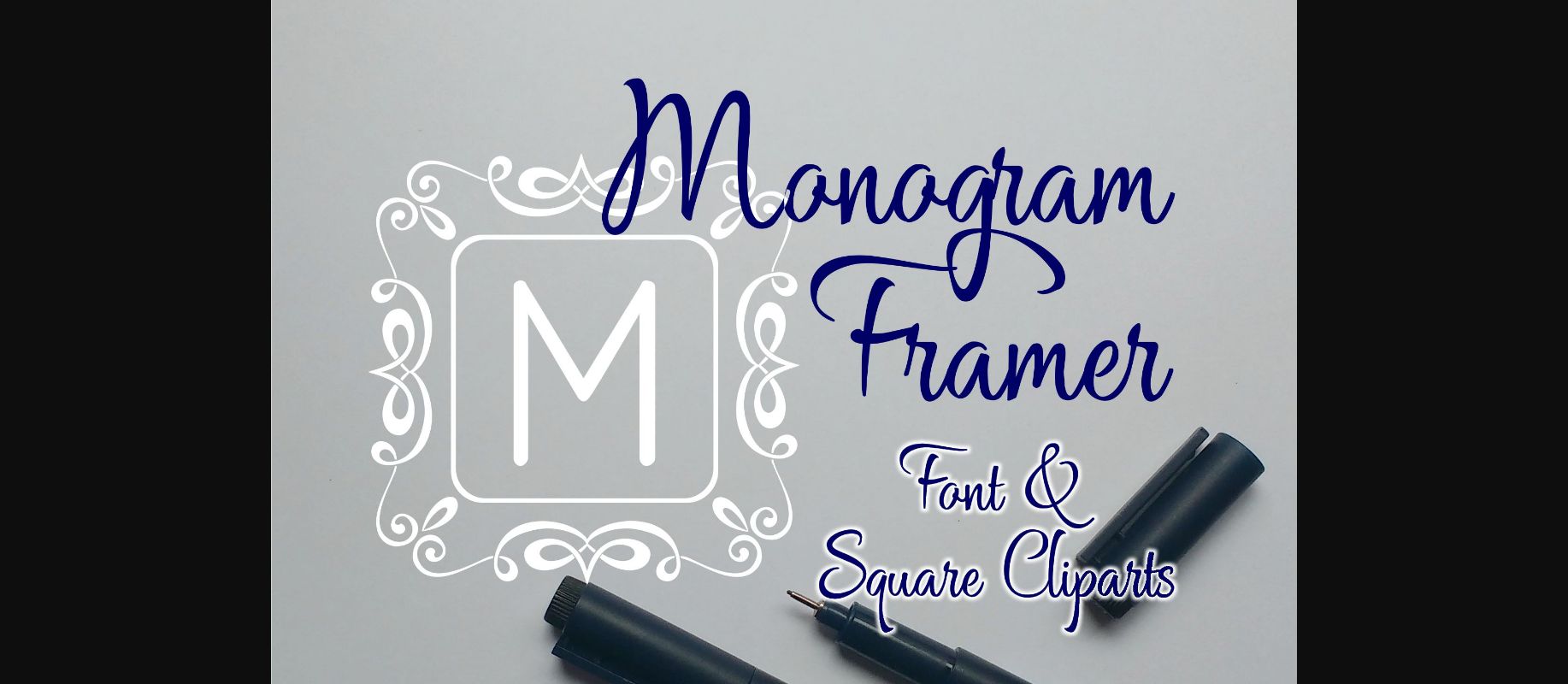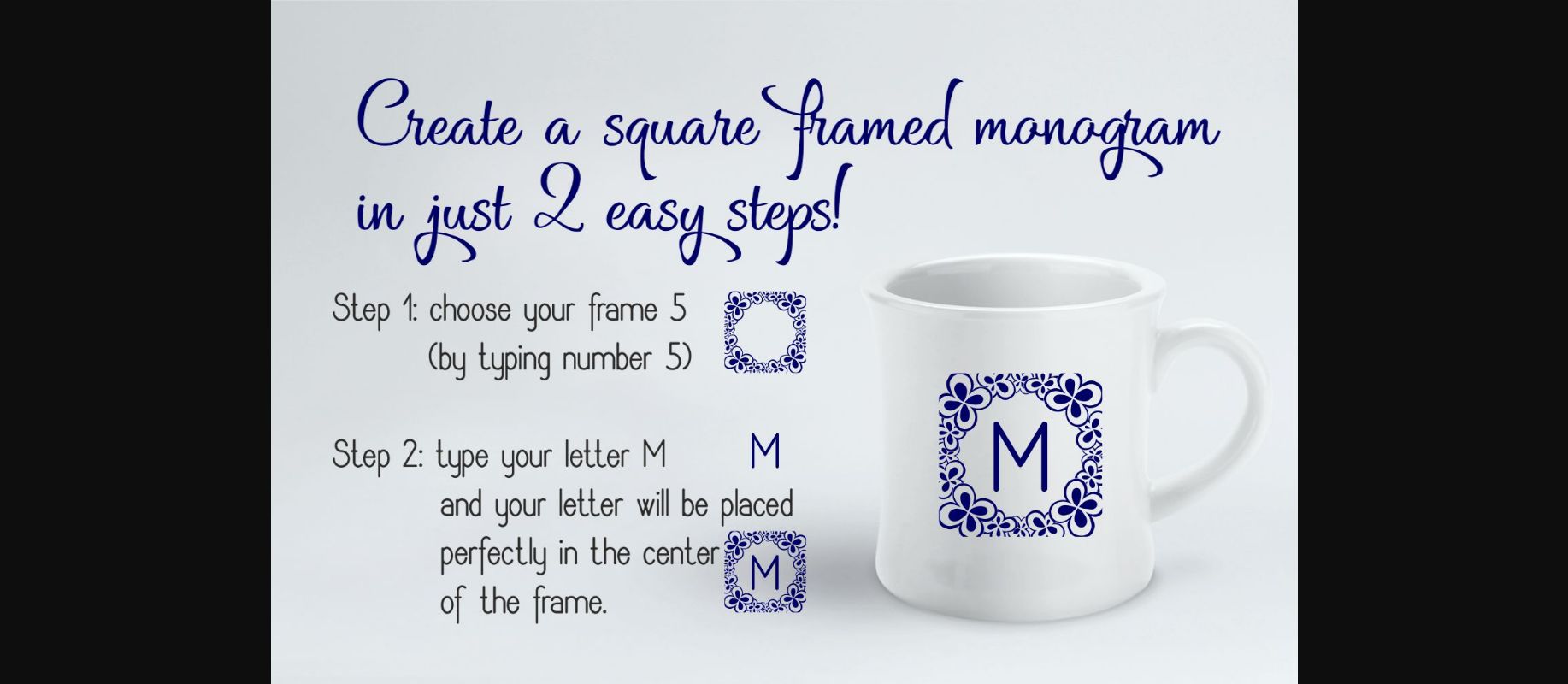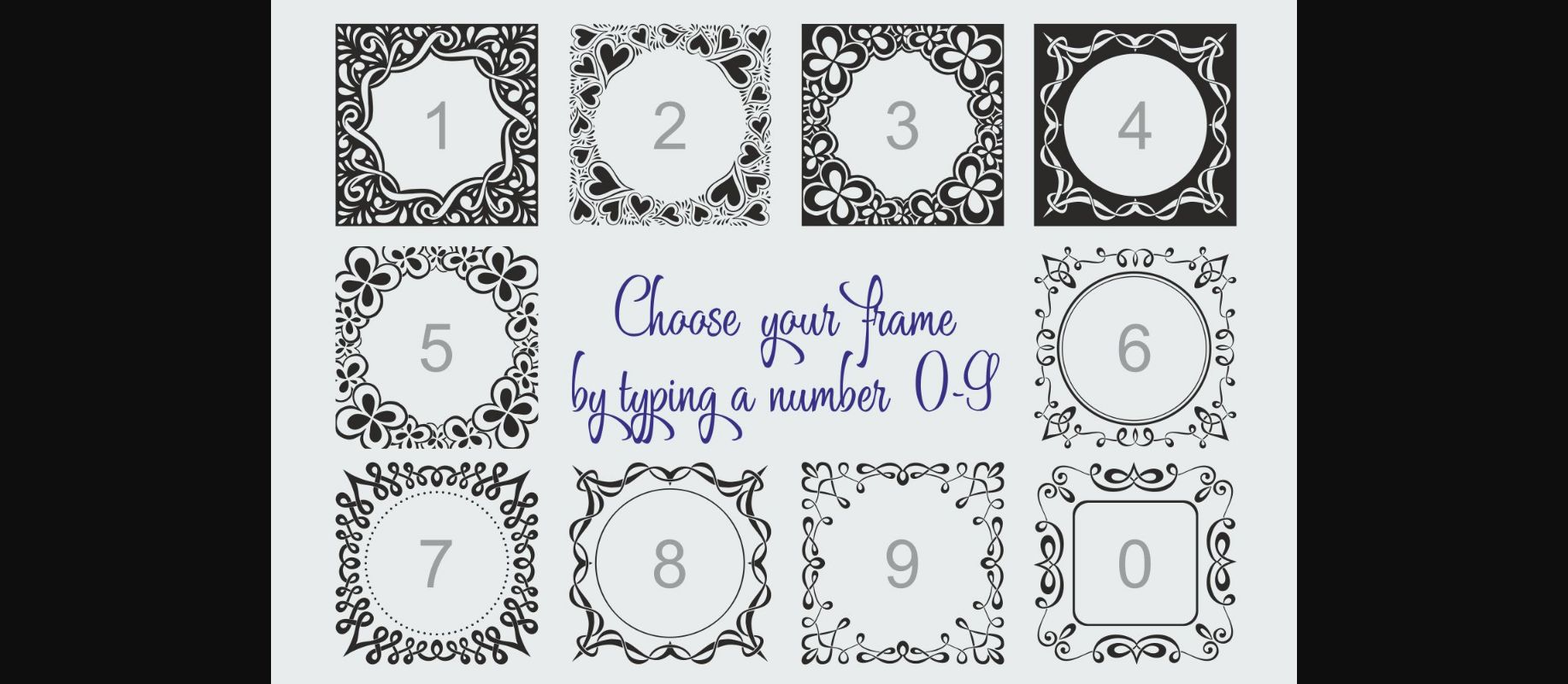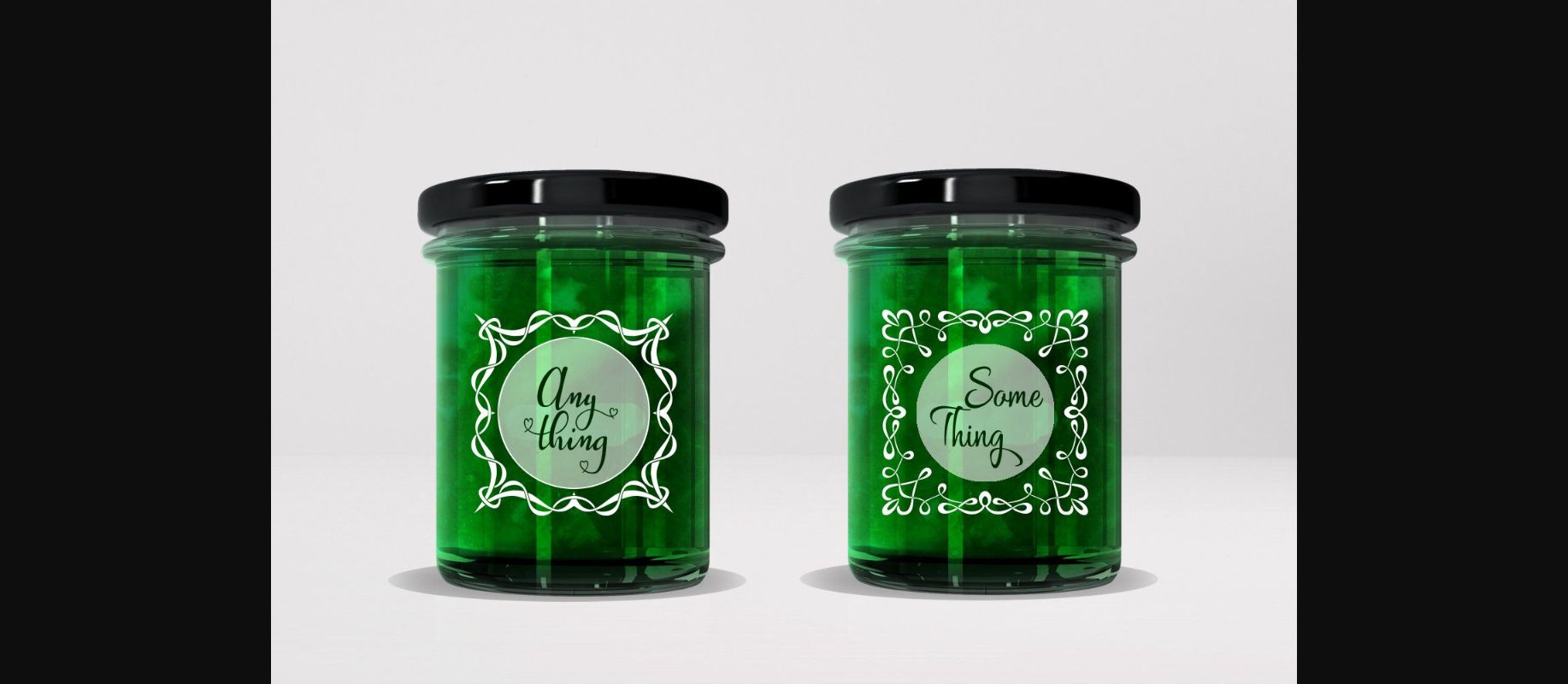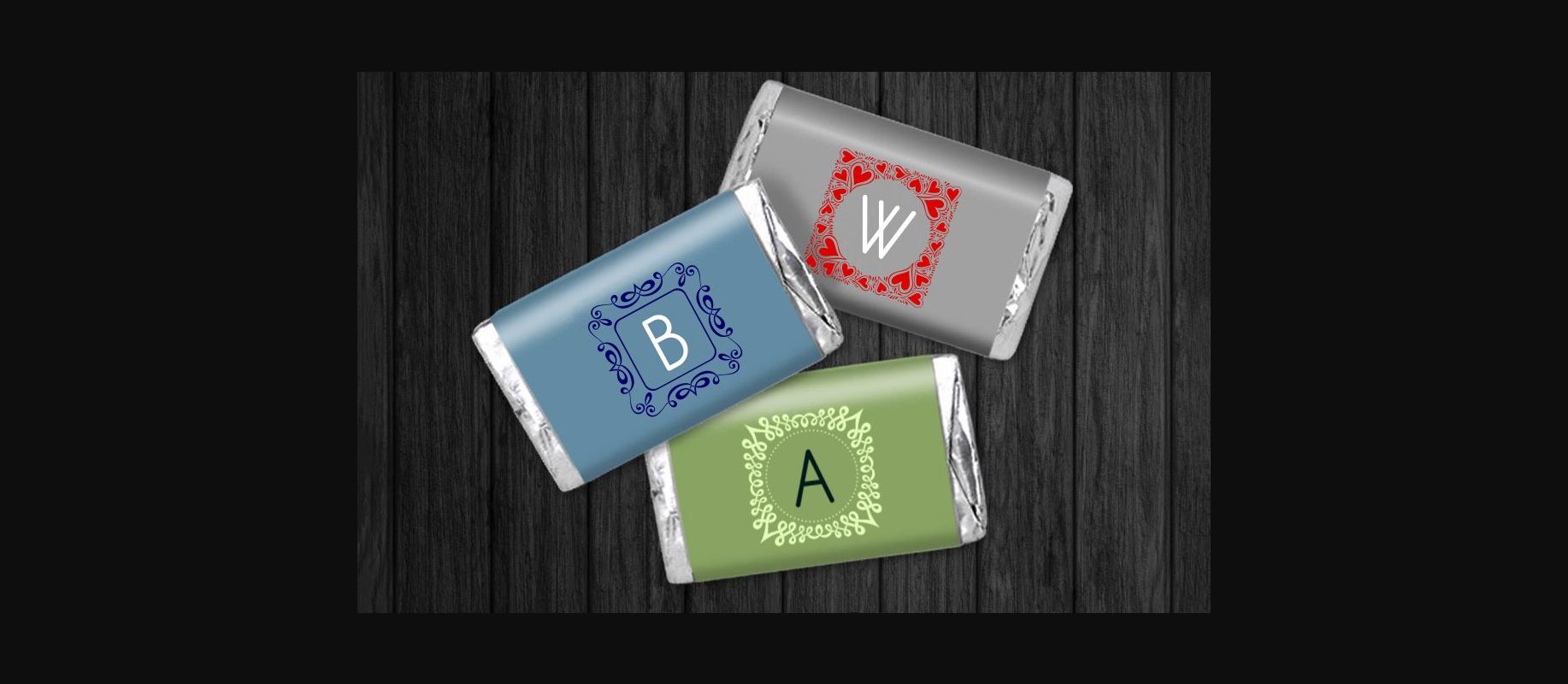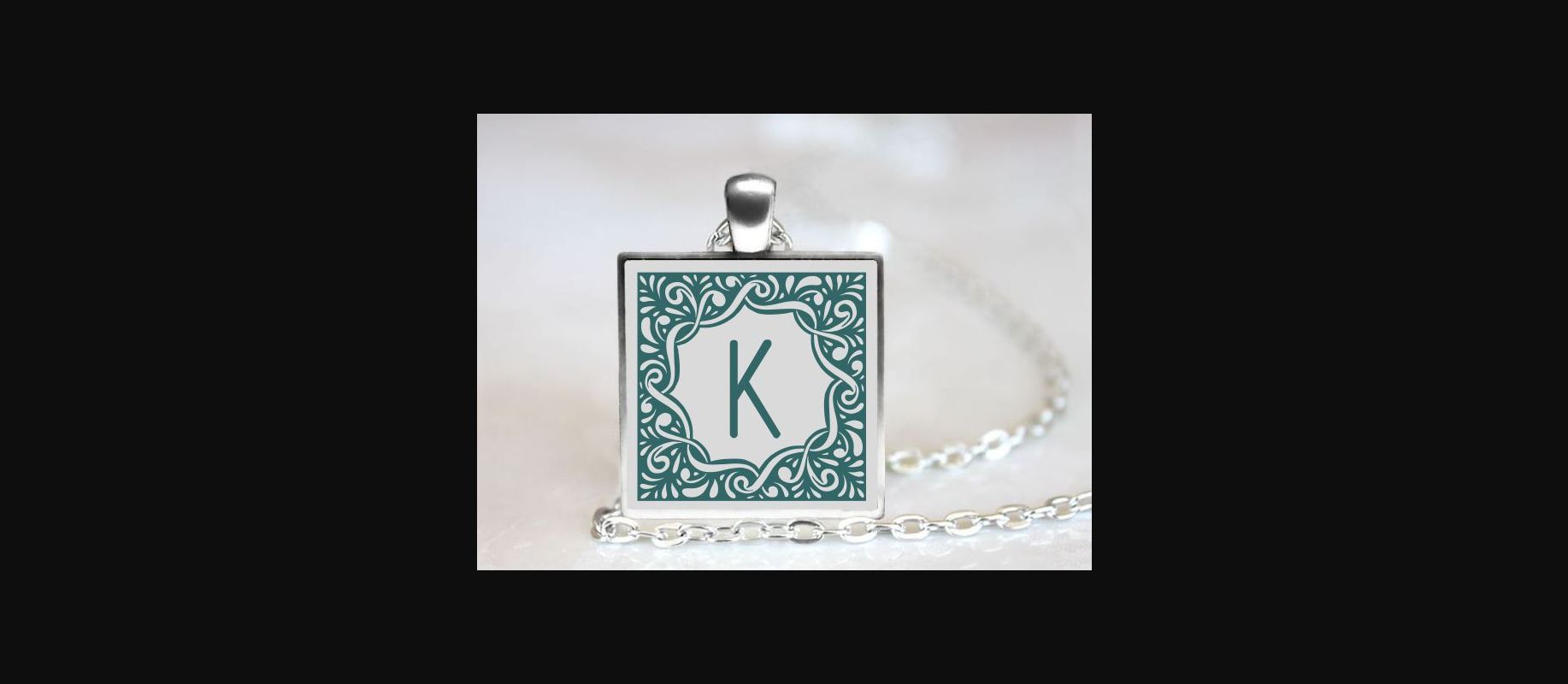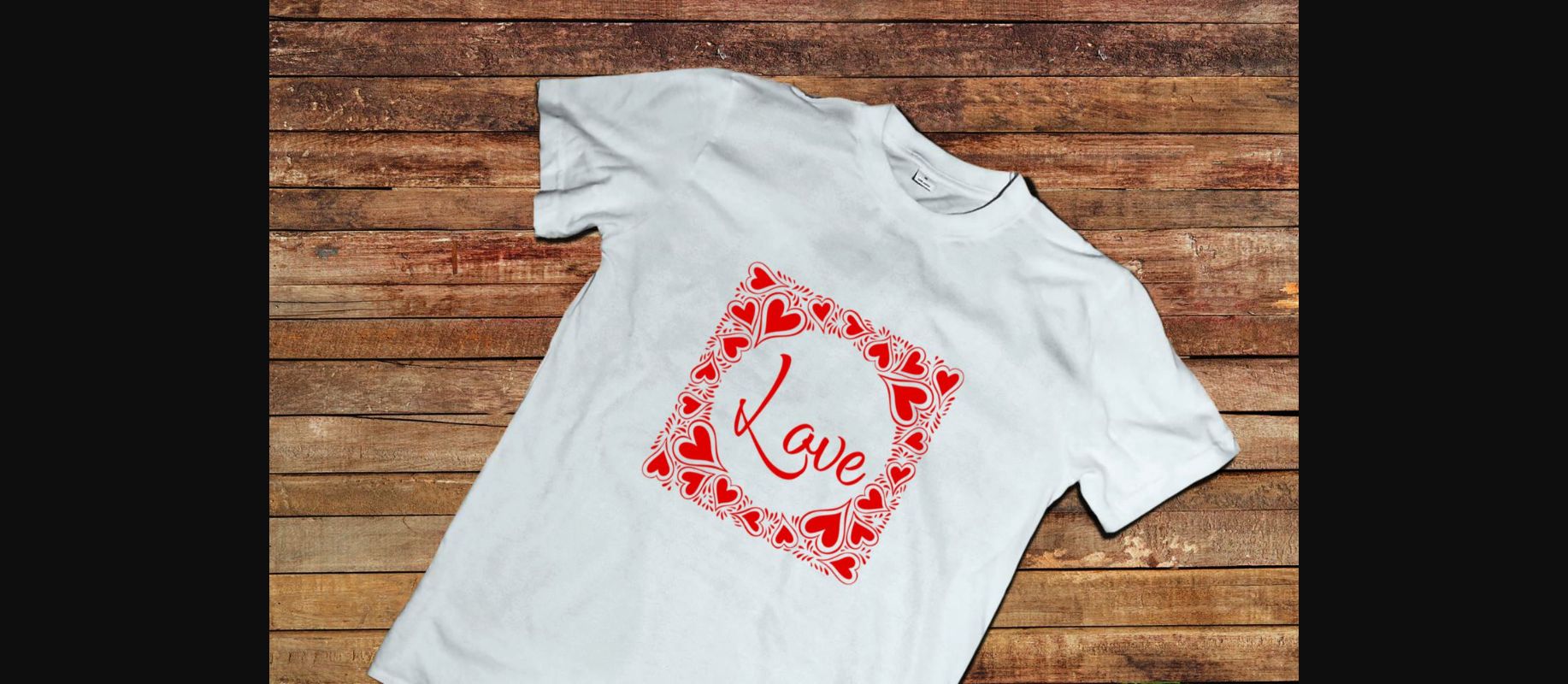
Square Monogram Framer Font
About Square Monogram Framer Font
With Square Monogram Framer you’ll be able to create a square framed monogram in just 2 easy steps!
Step 1 – Type a number (choose a number 0-9 to select a frame)
Step 2 – Type your letter (without space) and your letter will be placed perfectly in the center of the frame.
An other way to create a unique monogram: open an individual frame clipart and place your letter in the center by using any font you have.